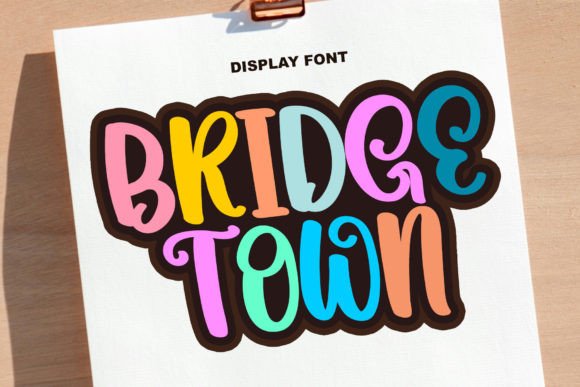
Introducing Bridgetown Font: Elevate Your Designs with Elegance
Are you a designer, crafty DIY enthusiast, or social media influencer looking for a font that adds a touch of sophistication to your creations? Look no further than Bridgetown Font, a beautiful handwritten script that can transform any project into a stunning piece of art. In this article, we’ll dive into the world of Bridgetown Font, exploring its features, uses, and benefits for designers and crafters alike.
The Story Behind Bridgetown Font
Bridgetown Font is a carefully crafted handwritten font, designed to bring a sense of elegance and refinement to your designs. With its flowing lines, delicate curves, and whimsical touches, this font is perfect for adding a personal touch to your creative projects. Whether you’re working on a DIY craft, creating social media content, or designing a brand identity, Bridgetown Font is the perfect choice.
Key Features of Bridgetown Font
- Handwritten with love: Bridgetown Font is a genuine handwritten script, created with precision and care to ensure a natural, organic feel.
- Elegant and refined: With its flowing lines and delicate curves, Bridgetown Font exudes sophistication and poise, making it perfect for high-end designs.
- Versatile: This font is suitable for a wide range of projects, from Instagram graphics and DIY crafts to branding, packaging, and more.
- Easy to read: Despite its elegant nature, Bridgetown Font remains highly legible, ensuring your message is conveyed clearly and effectively.
Using Bridgetown Font for Instagram and Social Media
As a social media influencer or designer, you know how important it is to stand out on Instagram and other platforms. Bridgetown Font can help you do just that. Use it to create eye-catching graphics, stylish quotes, and engaging captions that will draw your audience in and leave a lasting impression. Whether you’re promoting a product, sharing a personal story, or simply showcasing your creativity, Bridgetown Font is the perfect choice.
Bridgetown Font in DIY Projects
Crafty DIY enthusiasts will love Bridgetown Font for its versatility and charm. Use it to create personalized gifts, decorate your home, or make unique cards and invitations. With Bridgetown Font, you can add a touch of elegance to any DIY project, making it a truly special and one-of-a-kind creation.
Benefits for Designers
As a designer, you’re always on the lookout for fonts that can help you create stunning, high-end designs. Bridgetown Font offers a range of benefits, including:
- Unique and exclusive: Stand out from the crowd with a font that’s both elegant and distinctive.
- Time-saving: With its clear, legible design, Bridgetown Font saves you time and effort in creating professional-looking designs.
- Scalable: Use Bridgetown Font across a range of projects, from business cards to billboards, without compromising on quality.
Tips and Tricks for Using Bridgetown Font
To get the most out of Bridgetown Font, here are a few tips and tricks to keep in mind:
- Experiment with colors: Bridgetown Font looks stunning in a range of colors, from soft pastels to rich jewel tones.
- Mix and match: Combine Bridgetown Font with other fonts and graphics to create unique, eye-catching designs.
- Pay attention to spacing: To ensure optimal legibility, pay attention to spacing and kerning when using Bridgetown Font.
Bridgetown Font is a magical handwritten script that can elevate your designs to new heights. With its elegant, refined design and versatile nature, this font is perfect for designers, crafters, and social media influencers alike. Whether you’re looking to create stunning Instagram graphics, DIY projects, or professional designs, Bridgetown Font is the perfect choice. So why wait? Discover the magic of Bridgetown Font today and transform your creative projects into true pieces of art!